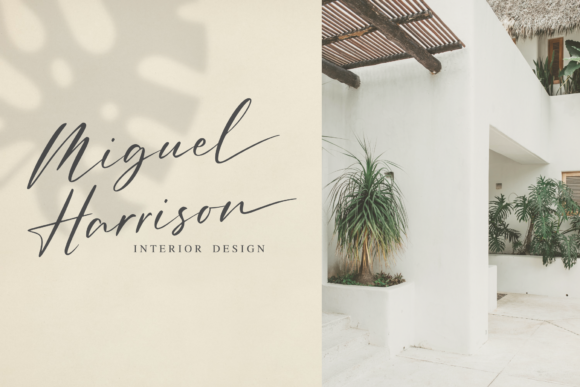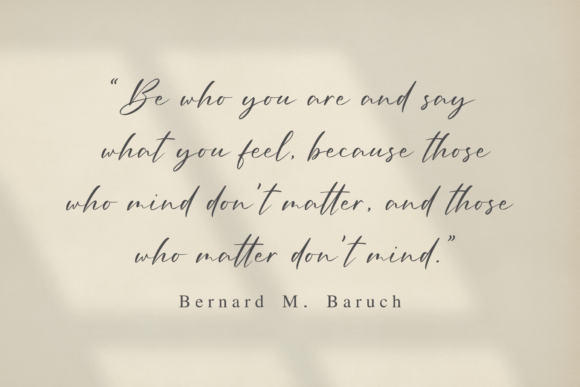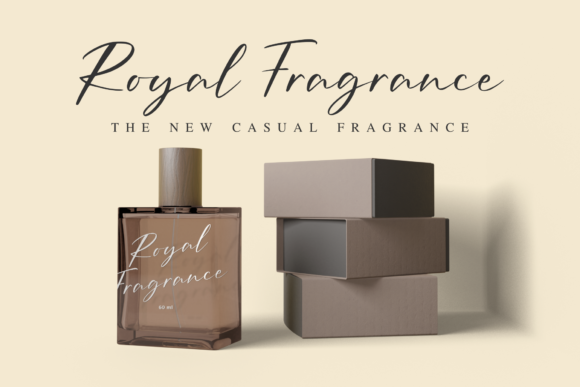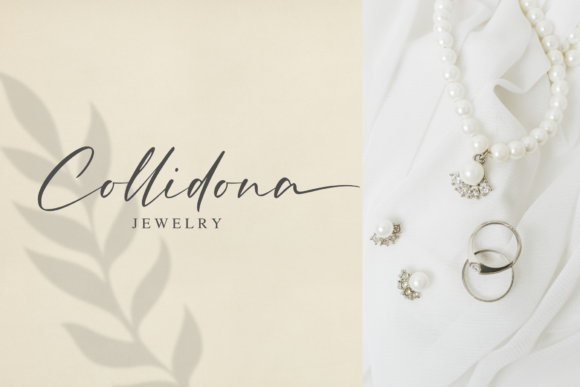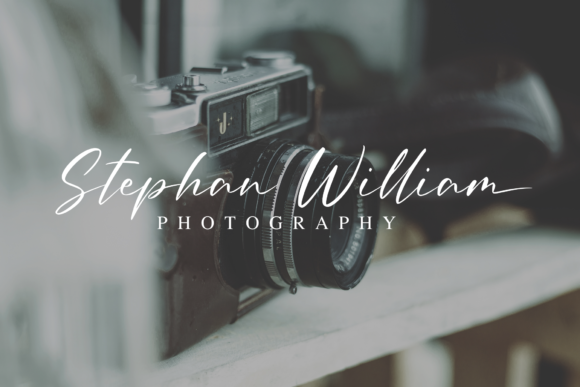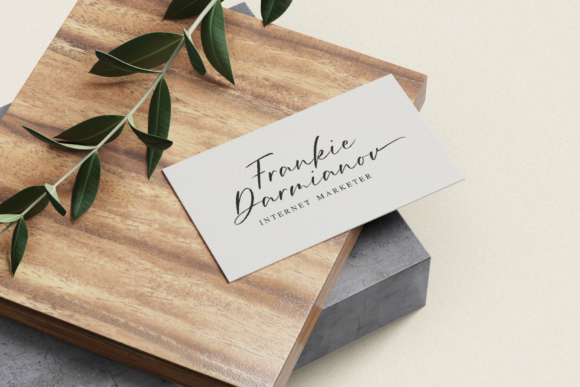
Introducing Amellian Gressida Font: Elevate Your Designs with Elegance
Amellian Gressida is a modern signature typeface that has been meticulously crafted to add a touch of sophistication to any design project. This stunning font is designed to take your creative endeavors to new heights, making it an essential tool for designers and crafters alike. With its beautifully designed letters, Amellian Gressida is the perfect choice for those looking to add a dash of elegance to their work.
The Art of Typography: What Makes Amellian Gressida Stand Out
Amellian Gressida is more than just a font – it’s an art form. Each letter has been carefully crafted to showcase a unique blend of modernity and classic charm. The font’s sleek lines, intricate details, and flowing curves make it a masterpiece of typography. Whether you’re working on a logo, branding project, or simply want to add a personal touch to your digital creations, Amellian Gressida is sure to impress.
Key Features of Amellian Gressida Font
- Modern Signature Typeface: Amellian Gressida boasts a contemporary design that is perfect for creating stunning signatures, logos, and titles.
- Gorgeously Crafted Letters: Each letter has been meticulously designed to showcase intricate details and flowing curves, making it a true masterpiece of typography.
- Elegant and Sophisticated: Amellian Gressida exudes elegance and sophistication, making it perfect for high-end designs, luxury brands, and creative projects.
- Versatile: This font can be used for a wide range of design projects, from logos and branding to digital art and crafting.
Why Choose Amellian Gressida Font?
With so many fonts available, why choose Amellian Gressida? Here are just a few reasons why this font stands out from the rest:
- Unique Design: Amellian Gressida’s distinctive design ensures that your work will stand out from the crowd, making it perfect for designers and crafters looking to create something truly special.
- High-Quality: This font is crafted with precision and attention to detail, ensuring that it looks stunning in any design project.
How to Use Amellian Gressida Font in Your Designs
Using Amellian Gressida in your designs is easy. Here are a few tips to get you started:
- Pair it with Other Fonts: Combine Amellian Gressida with other fonts to create stunning contrast and add visual interest to your designs.
- Experiment with Colors: Try pairing Amellian Gressida with different colors to add depth and emotion to your designs.
- Use it for Headings and Titles: Amellian Gressida is perfect for headings and titles, making it a great choice for designers looking to add a touch of elegance to their work.
Amellian Gressida is a modern signature typeface that is sure to elevate your designs to new heights. With its gorgeously crafted letters, elegant design, and versatility, this font is a must-have for designers and crafters alike. Whether you’re working on a logo, branding project, or simply want to add a personal touch to your digital creations, Amellian Gressida is the perfect choice. So why wait? Download Amellian Gressida today and take your designs to the next level!